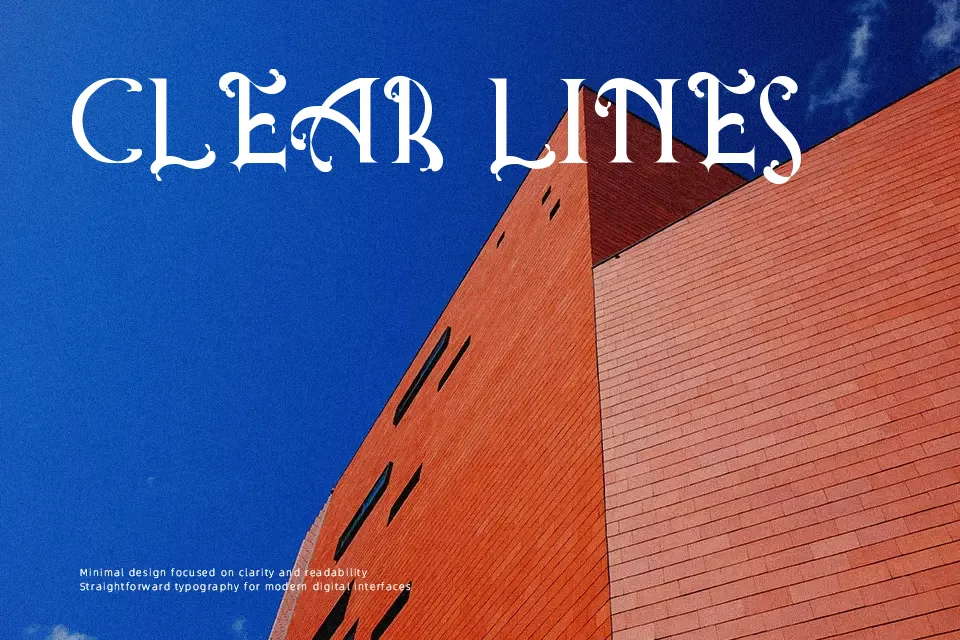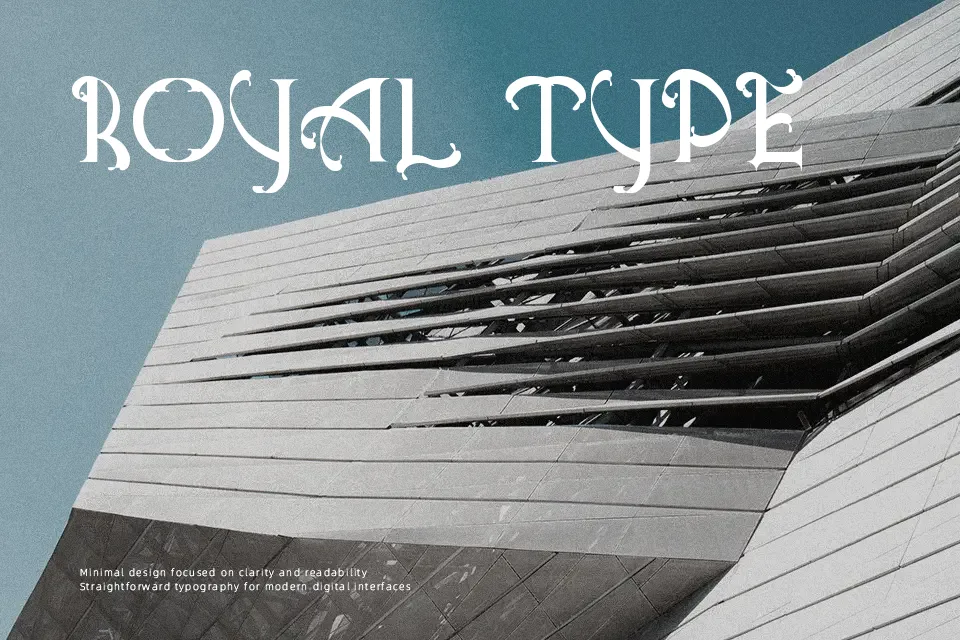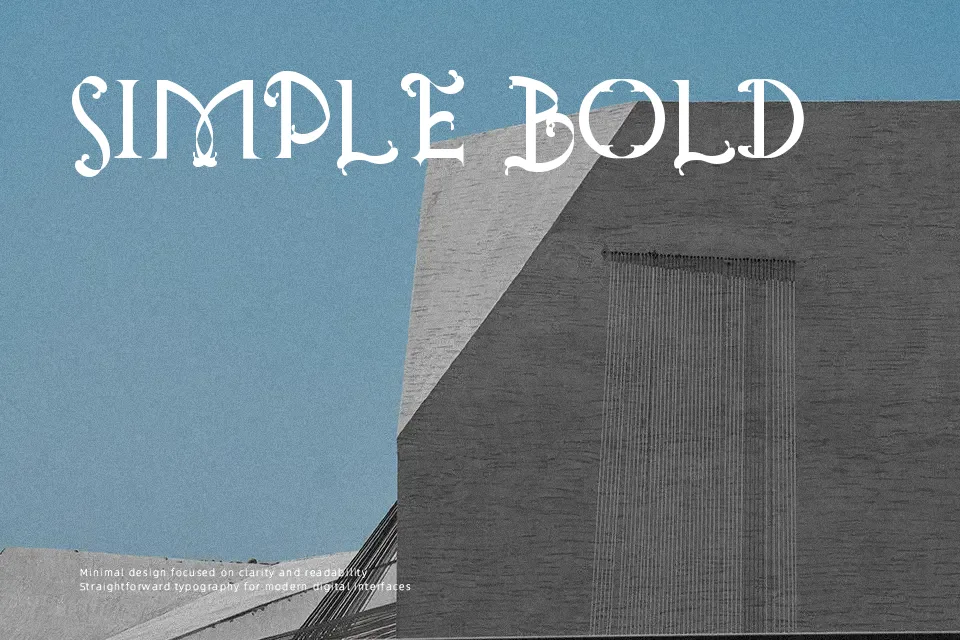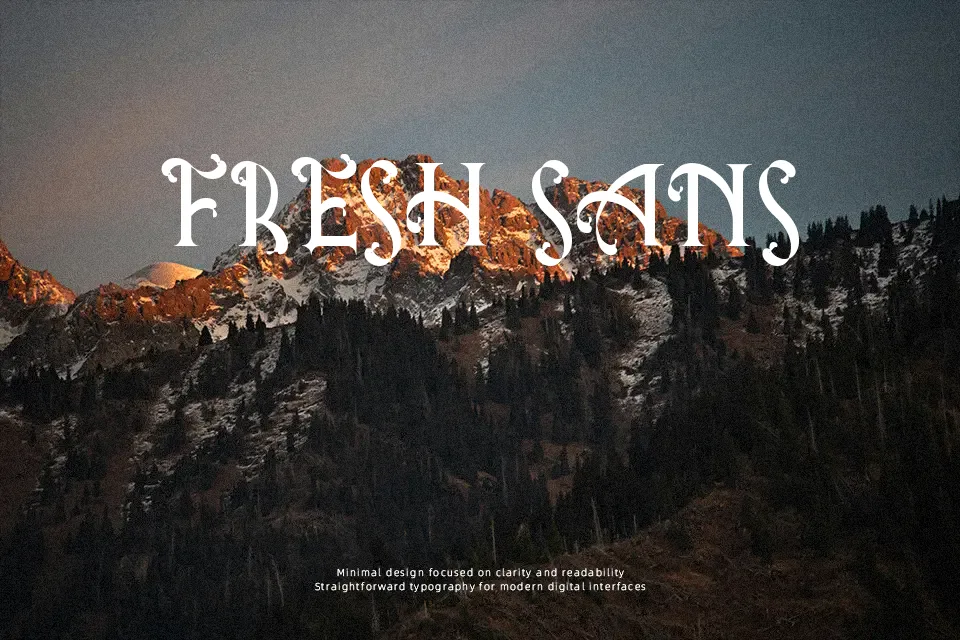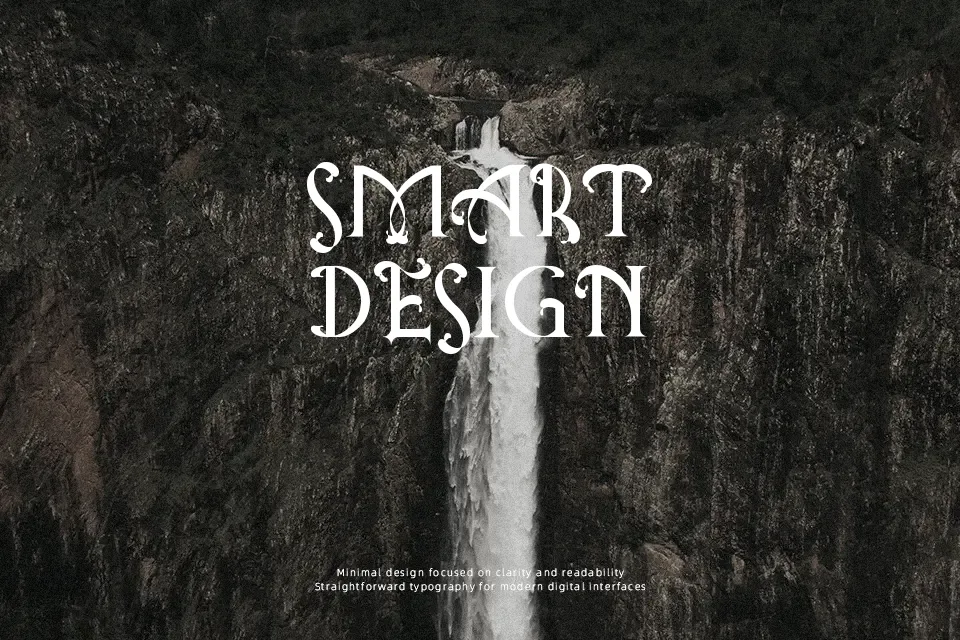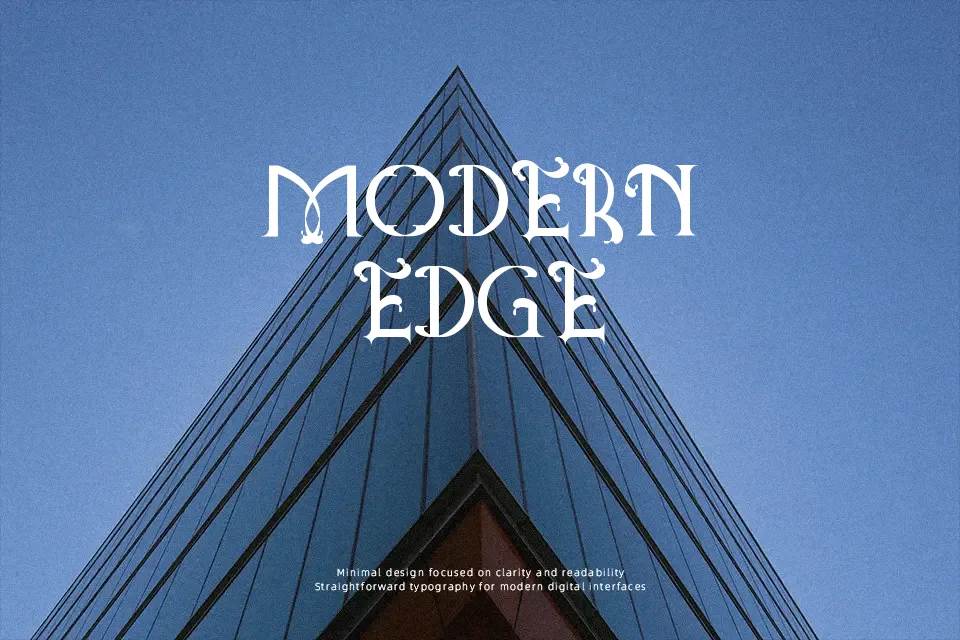
Antique Quest St Font
Antique Quest St features chunky, carved-looking letterforms with uneven contours, moderate spacing, and a strong retro adventure vibe reminiscent of old maps and quest titles. Its shapes feel decorative rather than formal, giving headlines a playful, vintage tone that works nicely for themed posters, treasure-hunt events, escape room graphics, or game logos. Because the characters are highly stylized and all-caps, it quickly becomes tiring in long paragraphs and detailed editorial layouts. This font works well when used sparingly for short phrases or logos that need an adventurous retro hook, but it does not perform as well where clean readability or a polished corporate look is required.
adventure-themed poster titles
treasure hunt or escape room logos
retro game or movie event graphics
formal corporate branding
small UI labels or app interfaces
Perfect for branding, gaming, and headline, with a fantasy and decorative style.